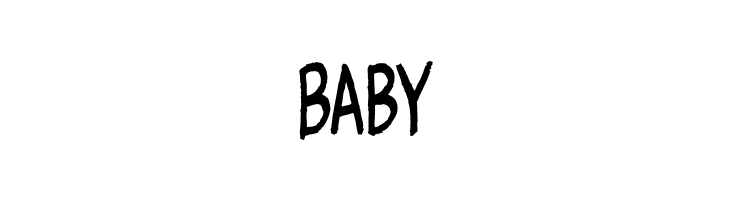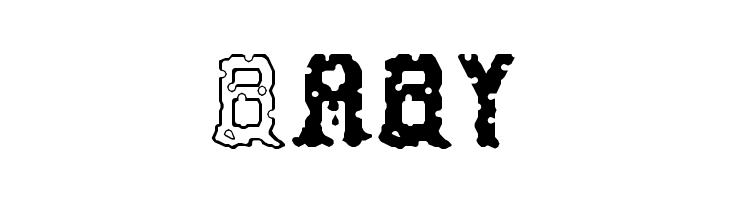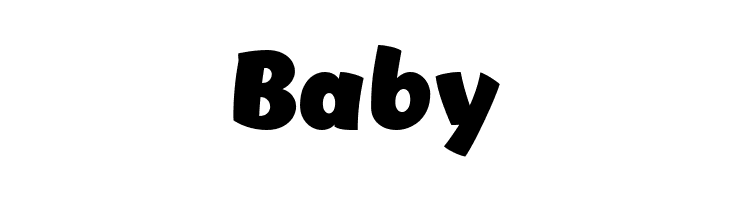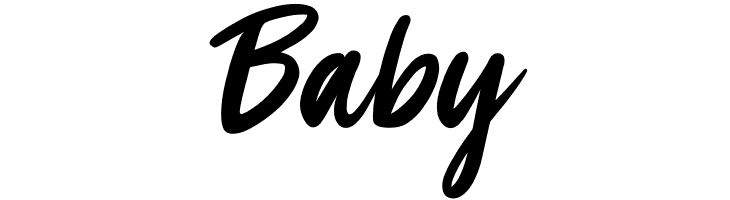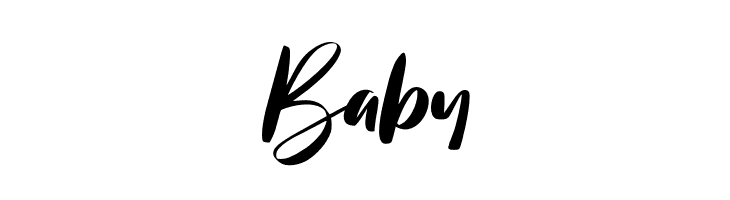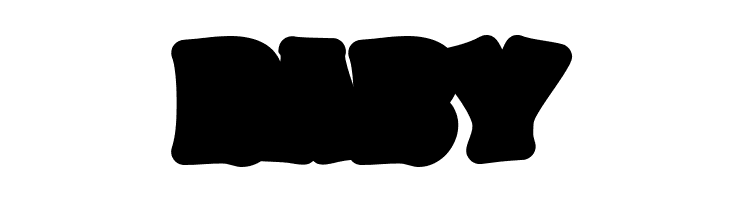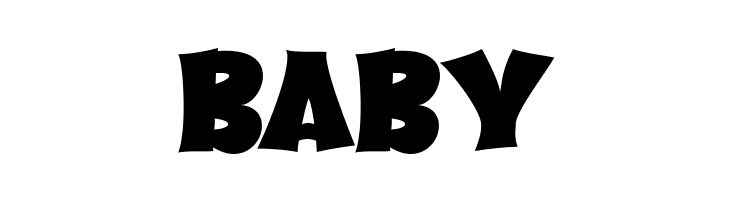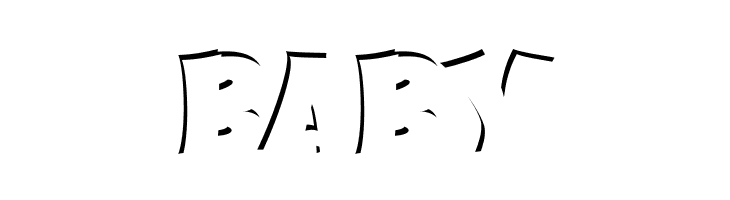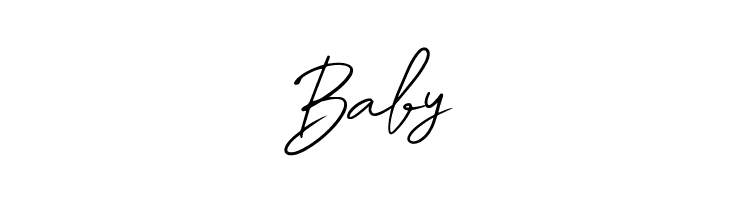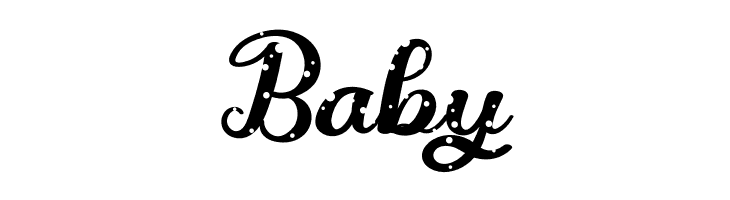
• CheerScriptROUNDRegular
A flowing, cursive script font with elegant, interconnected letters.
• Cheese
A playful, cheese-themed decorative font with bold, hole-filled characters.
• Cheese Cake]
An elegant and flowing script font with ornate uppercase letters and delicate embellishments.
• Cheese Cookies
A bold, cursive font with a lively, handwritten style.
• Cheese Donuts
A playful, handwritten font with rounded edges and a casual style.
• Cheese Fontdue Regular
A playful, cheese-inspired font with bold, irregular outlines and cutouts.
• Cheese Hunter
A playful, cheese-inspired font with bold, irregular characters.
• Cheese It Together
A playful script font with cheese-like holes and a whimsical, handwritten style.
• Cheese Market
A playful, bold font with rounded, thick strokes and a whimsical touch.
• CHEESE PIZZA
• Cheese Ramen
A playful, rounded font with a hand-drawn, casual style.
• CHEESE ROLL
A bold, playful typeface with exaggerated curves and a whimsical style.
• CHEESE ROLL EXT
A bold, playful font with rounded, cartoonish characters and a hand-drawn feel.
• CHEESE ROLL LGT
A playful, stencil-like font with bold, irregular shapes and a modern, artistic style.
• Cheese Toast
A playful, bold font with a hand-drawn, whimsical style.
• Cheese-Cake
• Cheese10bit
A pixelated, retro-style font inspired by early digital displays.
• Cheeseburger
A bold, playful font with rounded, condensed characters and a whimsical style.
• Cheesecake
A playful, rounded font with bold, smooth curves and a friendly vibe.
• CheesegumDEMO
A playful, hand-drawn font with bold, consistent strokes and a whimsical charm.
• Cheetah
A bold, playful font with an animal print pattern, ideal for eye-catching designs.
• Chekharda-BoldItalic